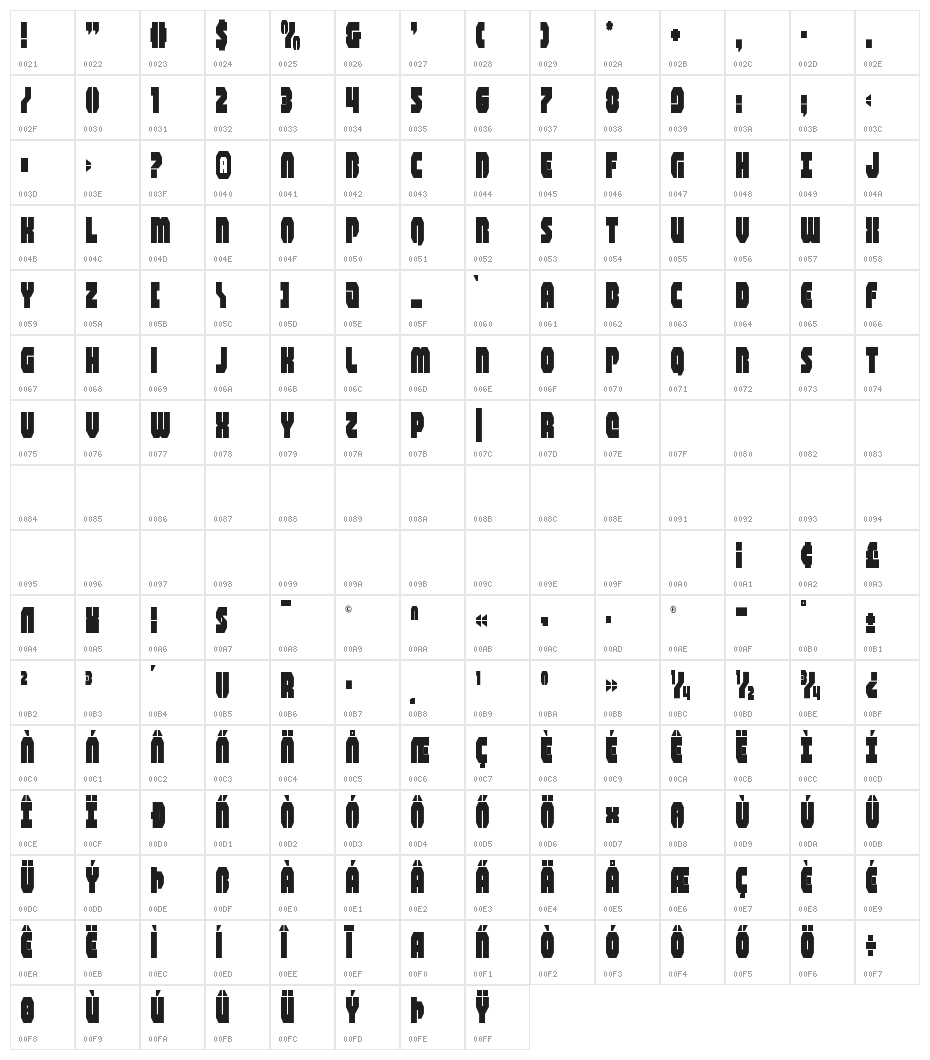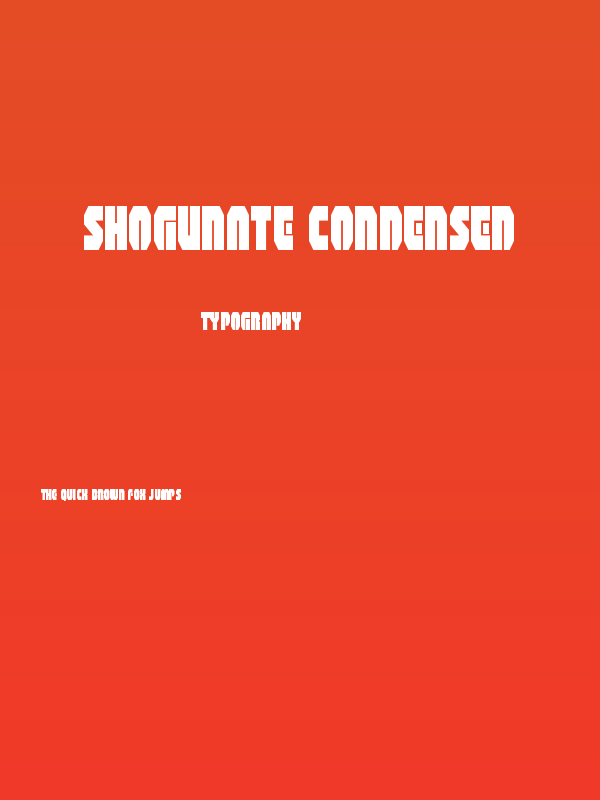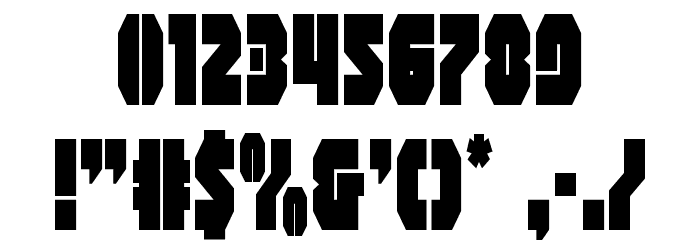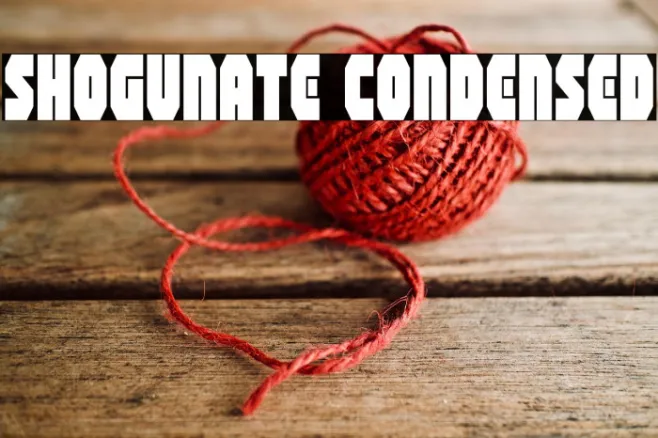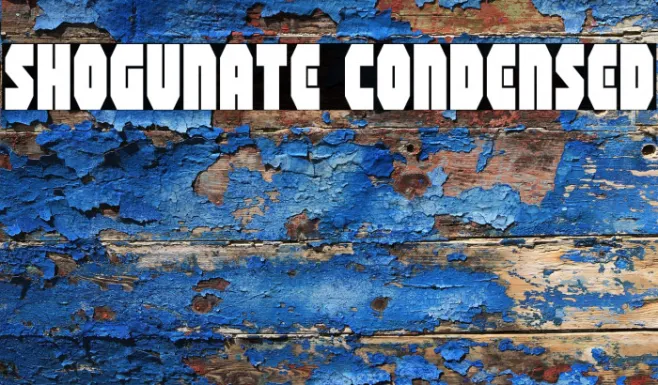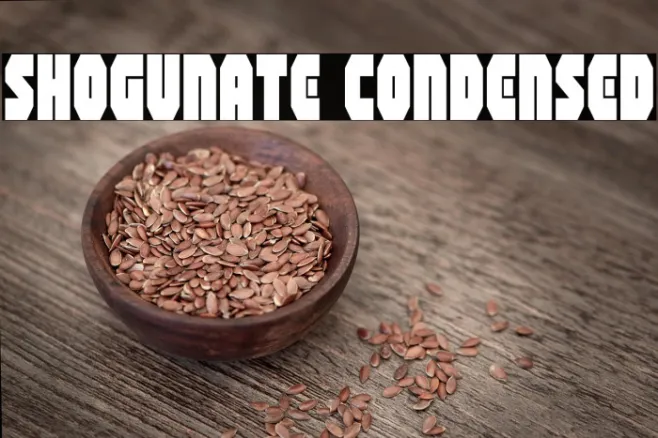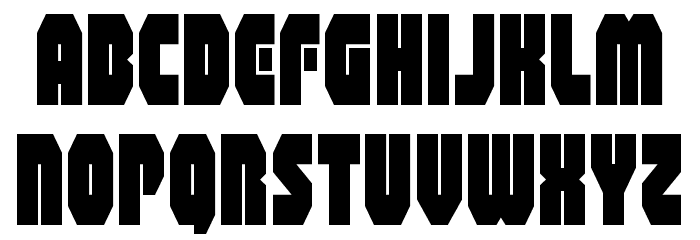
Shogunate Condensed Font
Shogunate Condensed Description
This font features a bold, geometric design with sharp angles and a condensed structure. Each character is crafted with a blocky, robust appearance, emphasizing a strong visual impact. The uppercase and lowercase letters maintain a consistent style, with minimal curves and a focus on straight lines and sharp edges. The numerals and special characters follow the same design principles, ensuring uniformity across all glyphs. This font's condensed nature makes it suitable for creating a compact yet striking visual presence.
| Proposed Projects | Ideal for posters, headlines, branding, and any project requiring a strong, impactful typeface. |